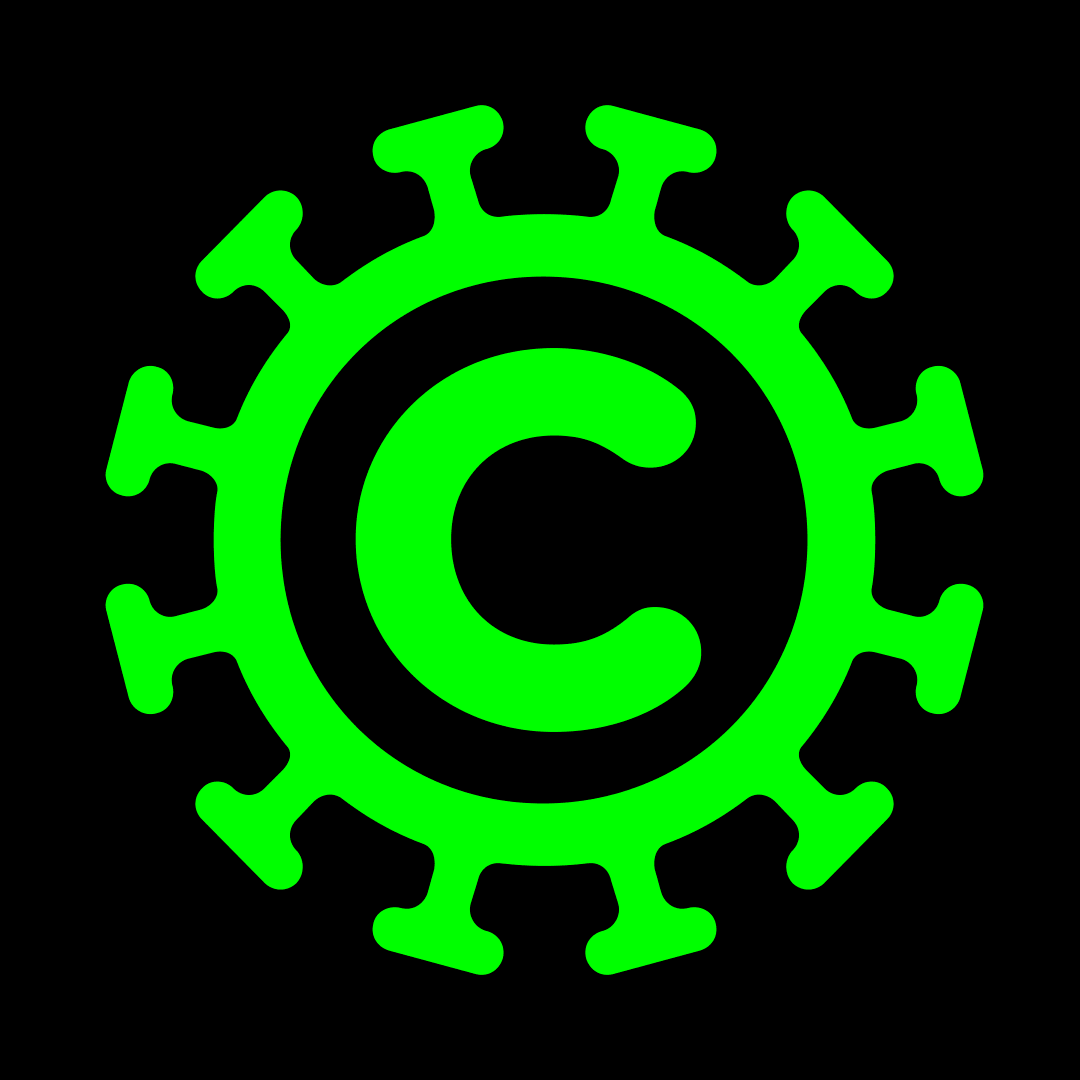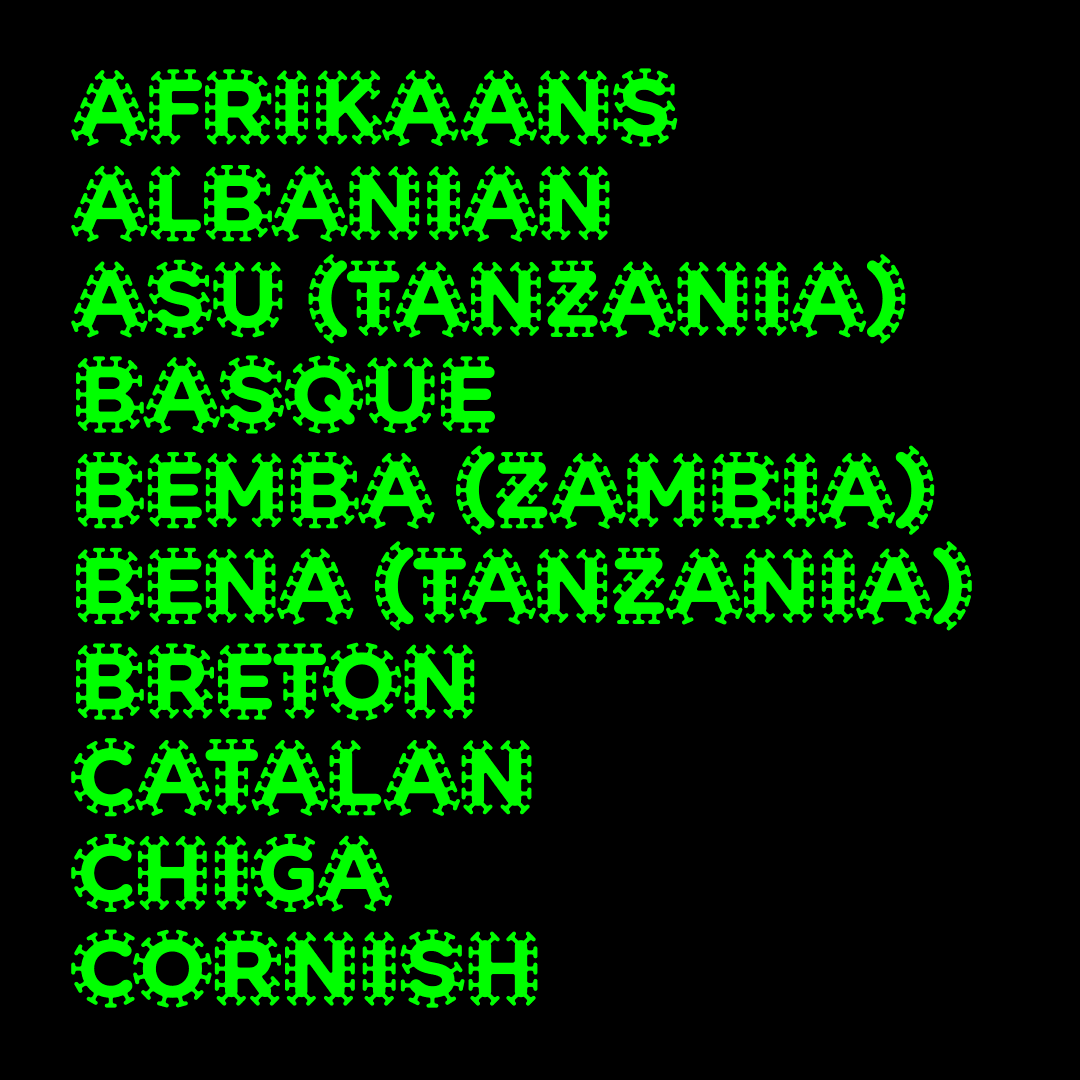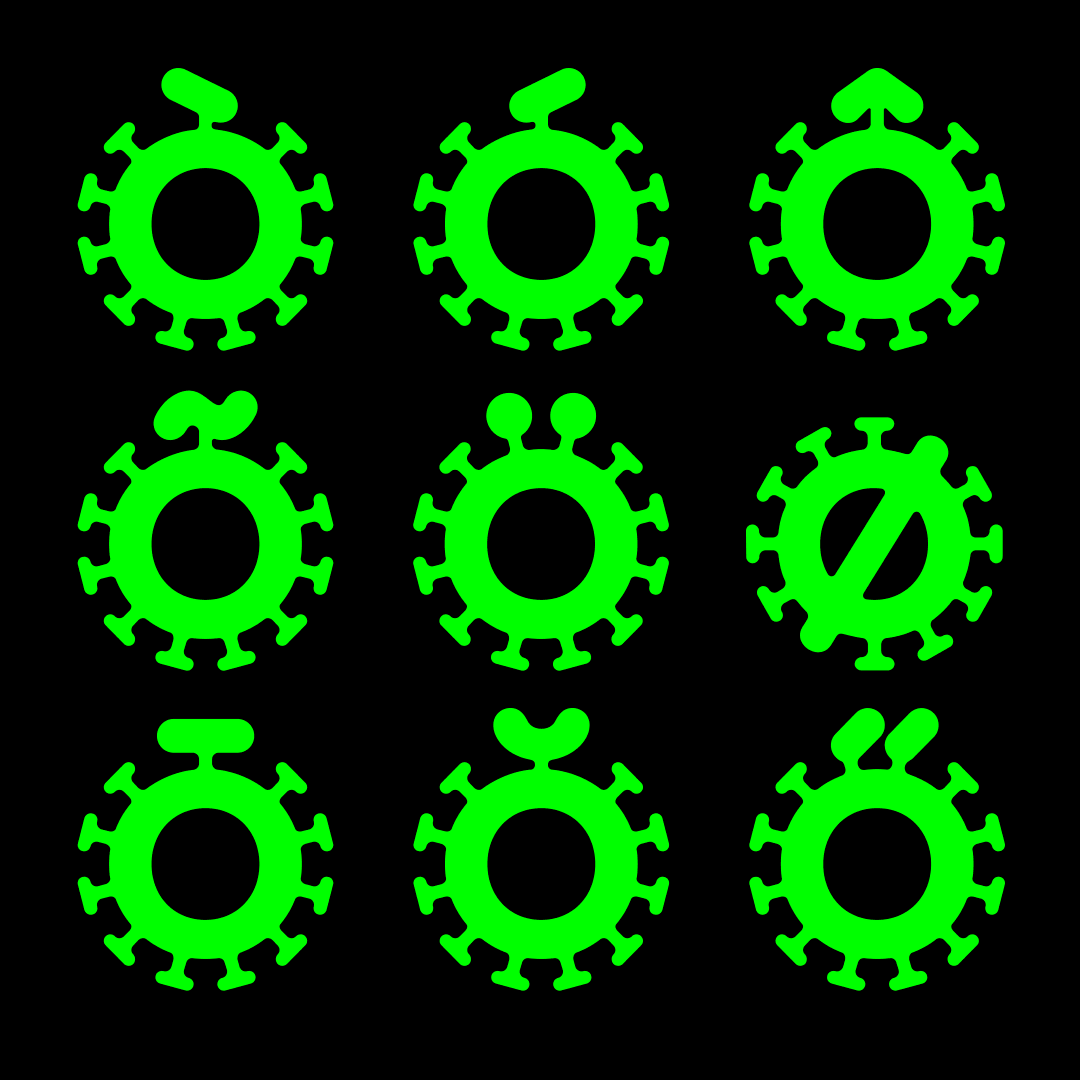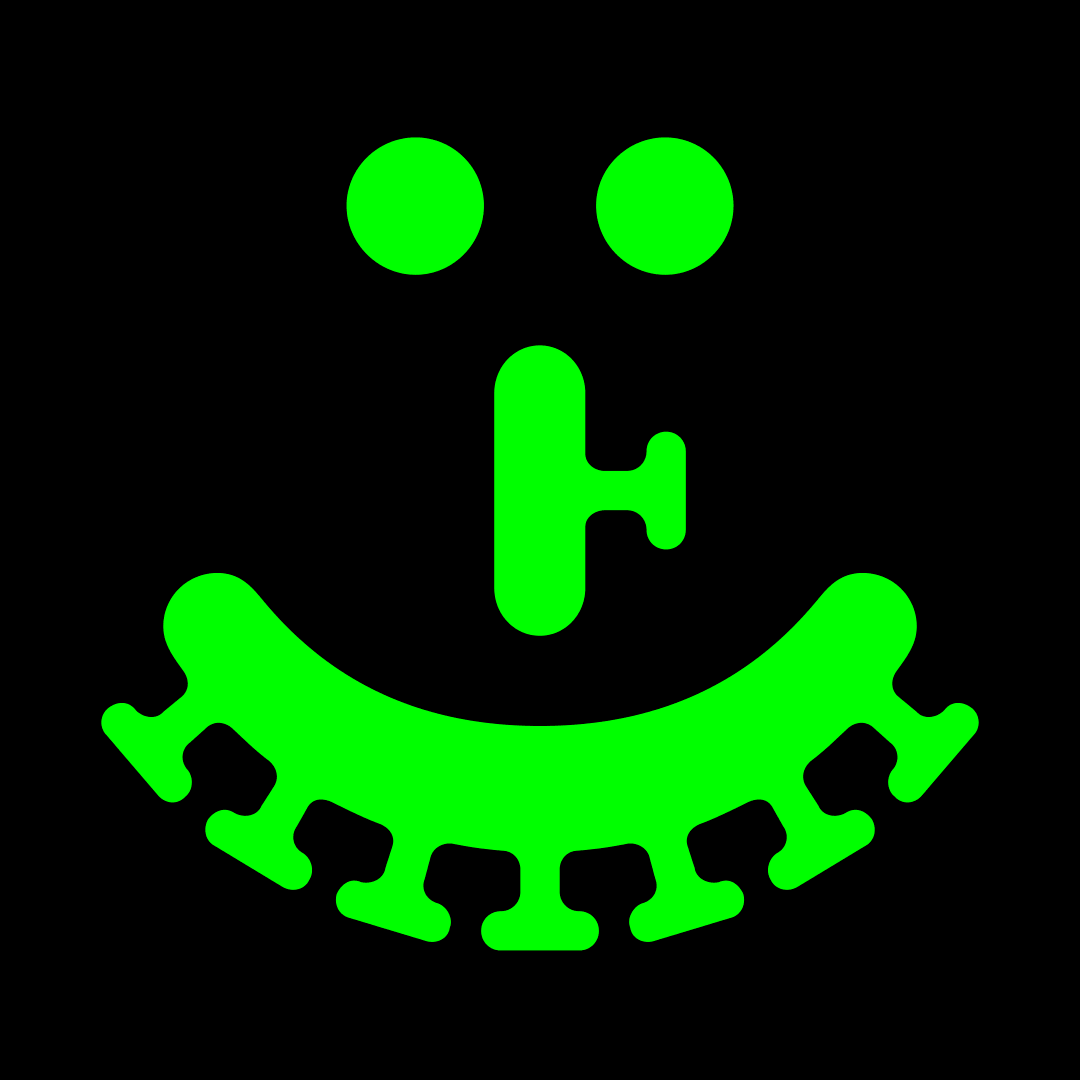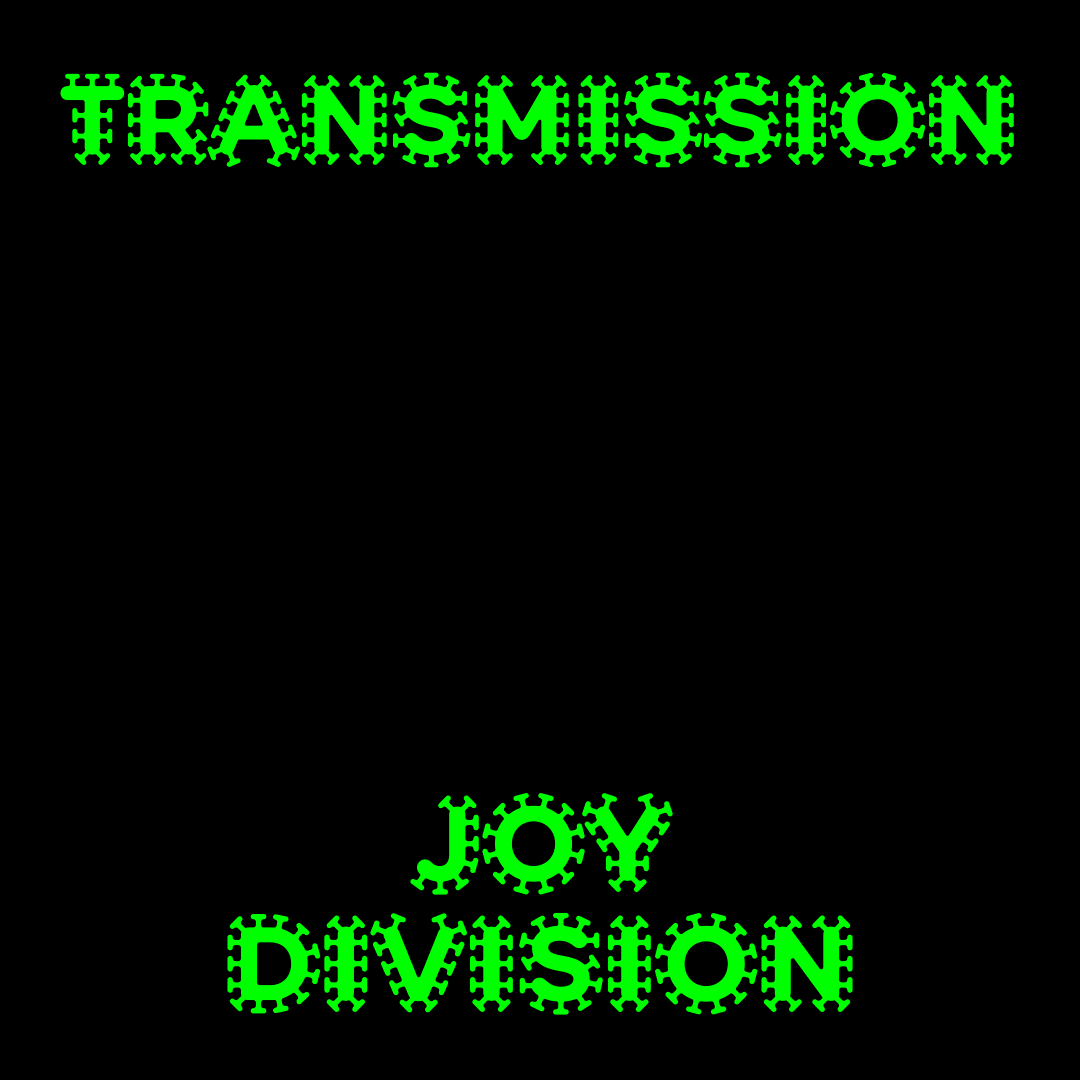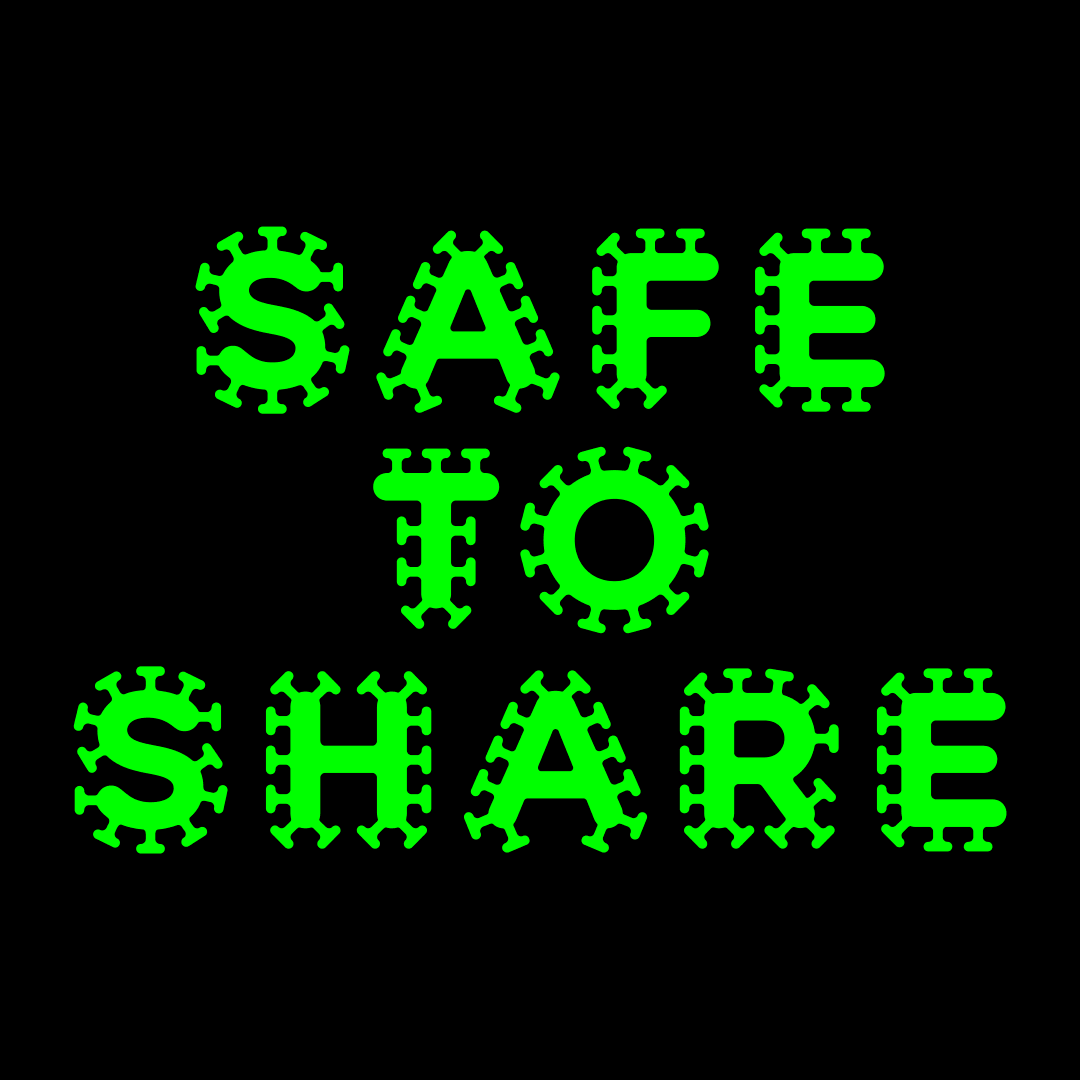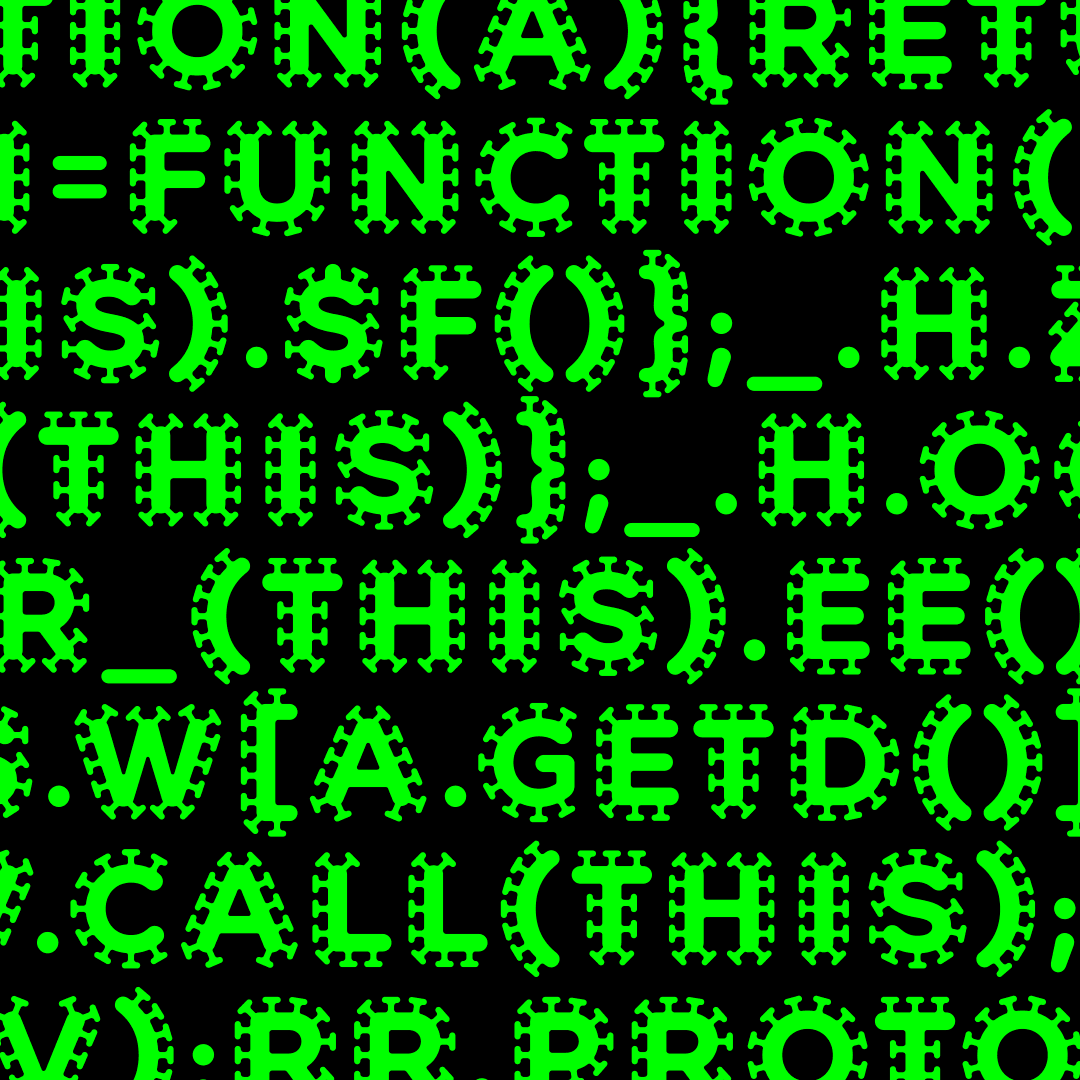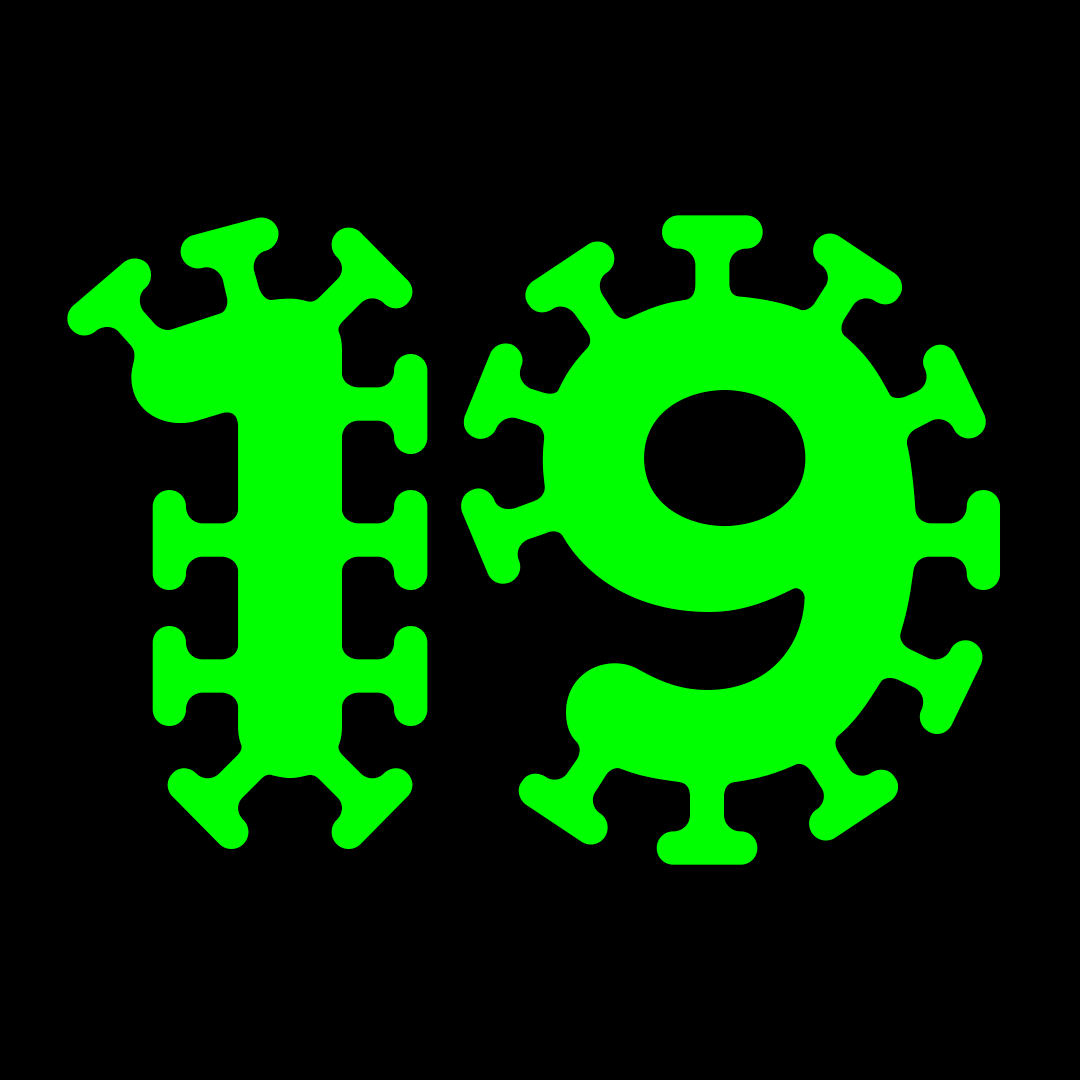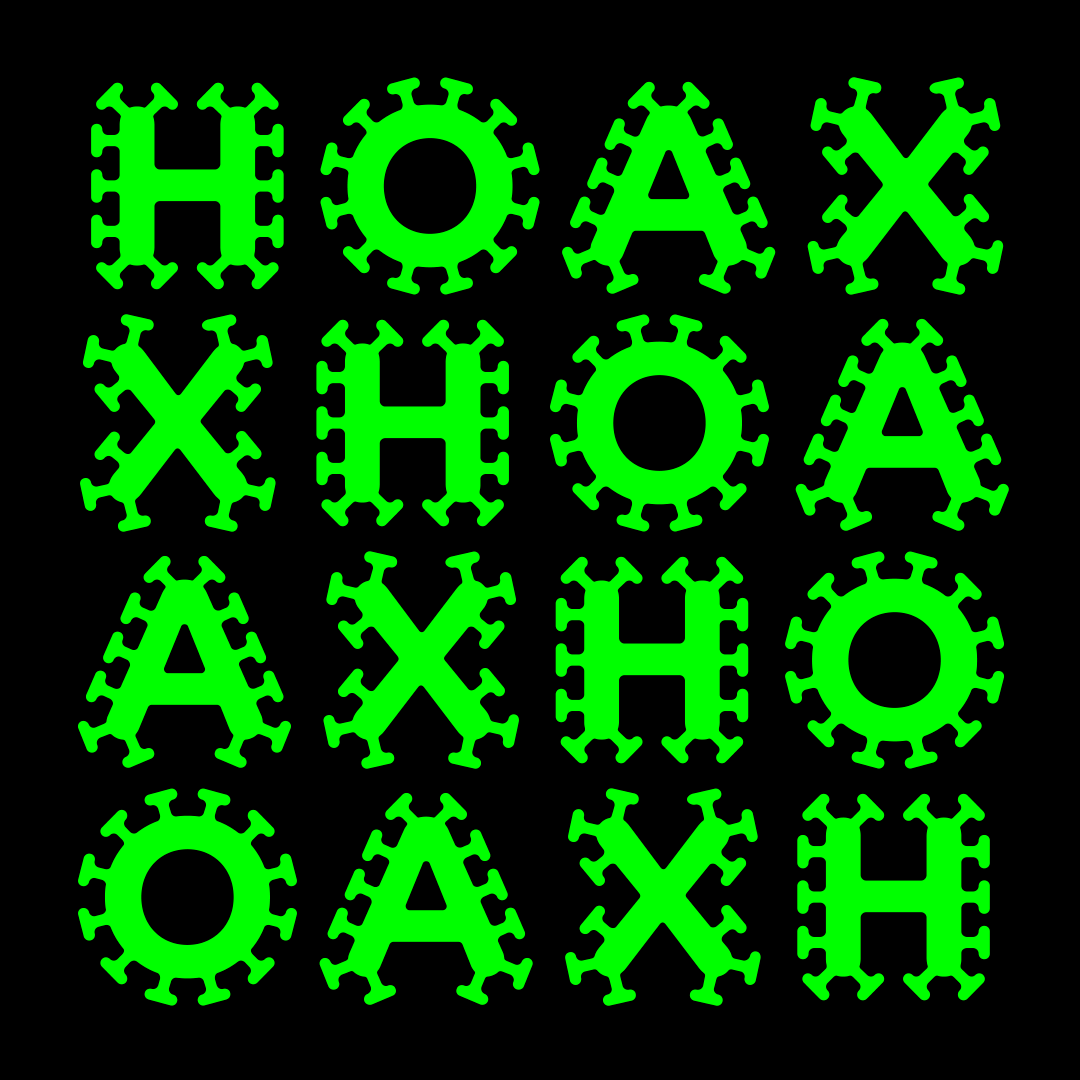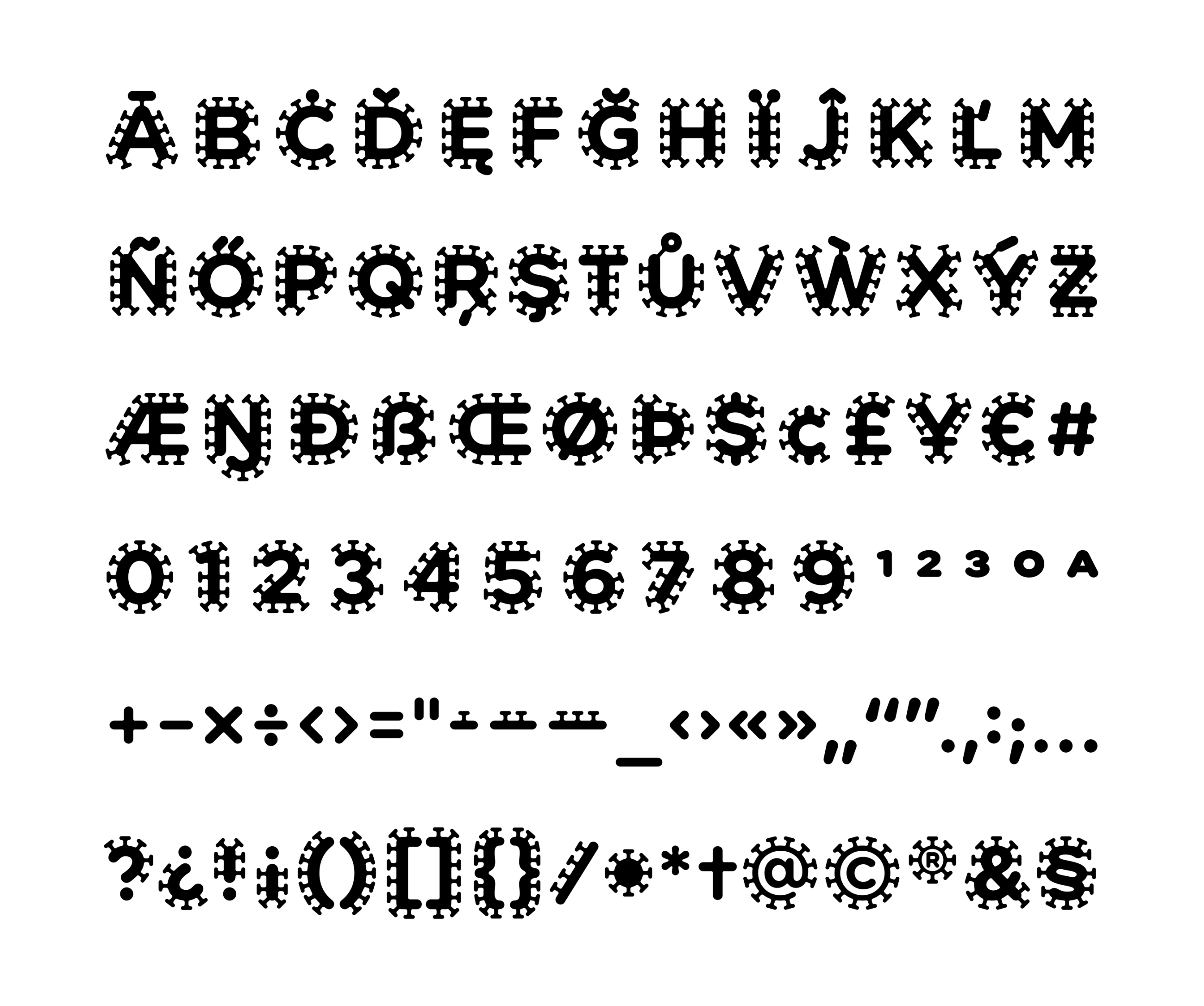
Free font COVID Infected!
Introducing Arial for these times. The typeface is called simply COVID and the first, heavily Infected font is now available free for everyone’s use. First it took over our own website. Further, we picture the font on guidelines for washing hands with bleach, on dystopian novels written in quarantine, on Zoom projects on pangolins and Dr. Fauci’s infographics. And especially on the announcement of the end of the pandemic and the return of life wherever it belongs. More styles will follow.